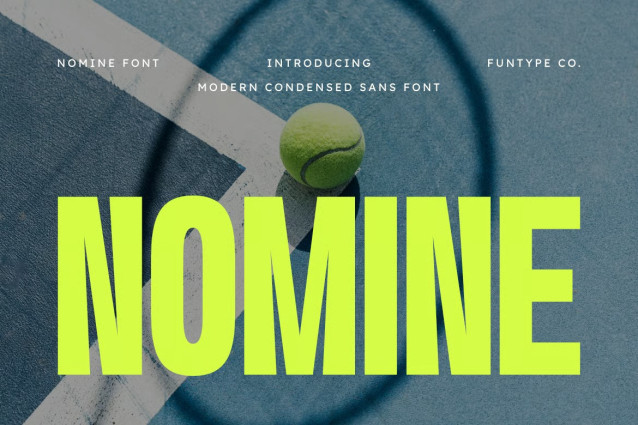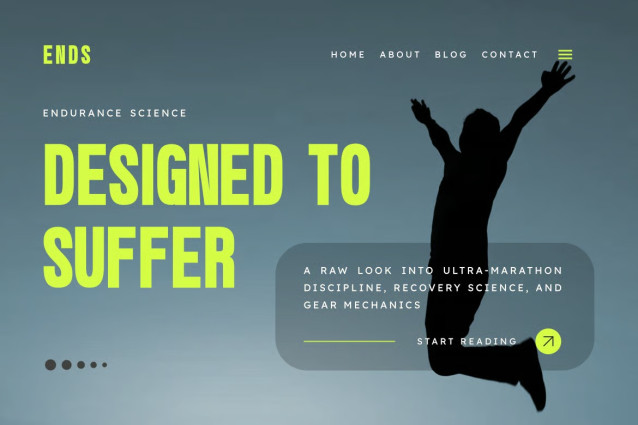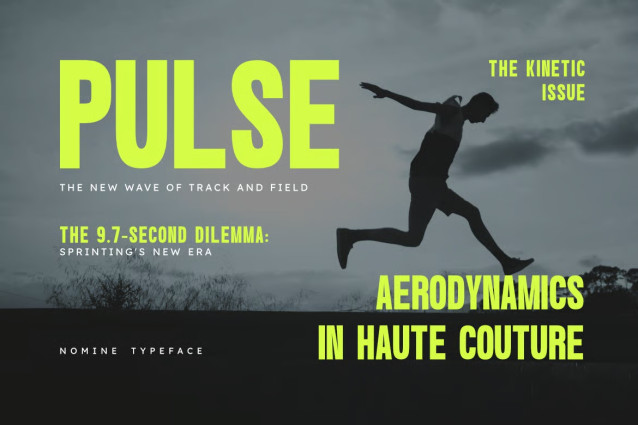
Nomine is a bold, high-impact, and modern condensed sans serif font, engineered to bring a powerful athletic presence, space-saving narrow geometry, and energetic display aesthetic to contemporary design layouts. Featuring a tall vertical profile, heavy block forms, and sharp angular notched cutouts, Nomine introduces a dynamic sports broadcast identity, high-energy editorial publishing, tournament event promotion, and prominent digital presentation designed to claim absolute visual focus.
This font family is the ultimate choice for creative directors, athletic event organizers, and publication publishers looking to implement a robust typography identity for major text hierarchies. Whether you are developing bold corporate enterprise logotypes, athletic tournament posters, energetic beverage packaging labels, cinematic title sequences, outdoor campaign headers, or prominent digital web banners, Nomine stands out with supreme legibility and commanding structural confidence.
- Modern Condensed Display Structure: Optimized with a narrow horizontal footprint and tall x-height for heavy, high-impact title compositions.
- Dynamic Sharp Geometry: Heavy block lines accented with distinctive sharp notch cutouts crafted to secure instant audience attention.
- High-Energy Sports Aesthetic: Clean vertical strokes balanced with aggressive angular details, perfect for cutting-edge publications, wellness branding, and digital media.